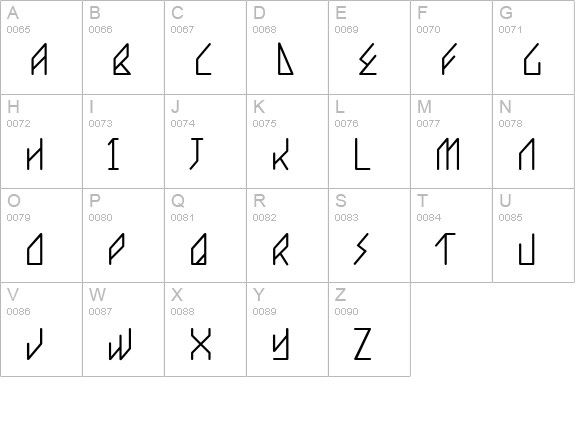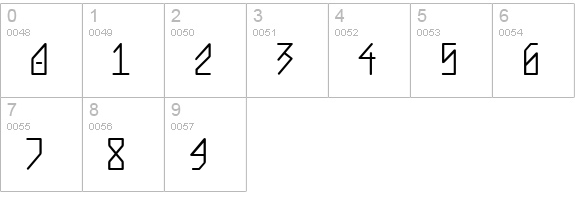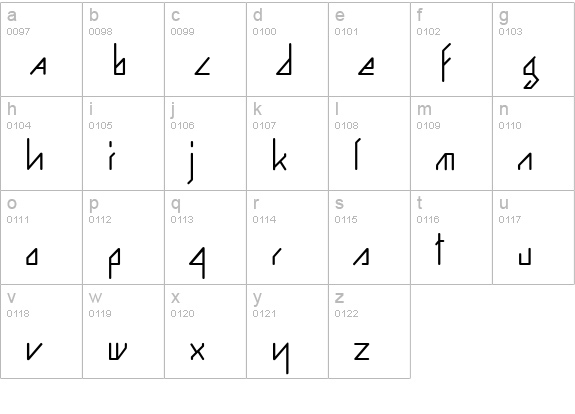
Ergonome Font Details
Ergonome font is a modern and elegant typeface that exudes sophistication and professionalism. Its clean lines and balanced proportions make it perfect for a wide range of design projects, from branding to editorial design. The sleek and contemporary look of Ergonome font will instantly elevate any text or message it is applied to. What sets Ergonome font apart is not just its aesthetic appeal, but also the fact that it is available for free download at FontsMarket.com. This means that designers and creatives of all levels can easily access this high-quality font to enhance their projects without any cost. Whether you are working on a personal project or a client's design, Ergonome font is a versatile and reliable choice that will help you achieve a polished and professional result. Download it today and add a touch of sophistication to your designs!